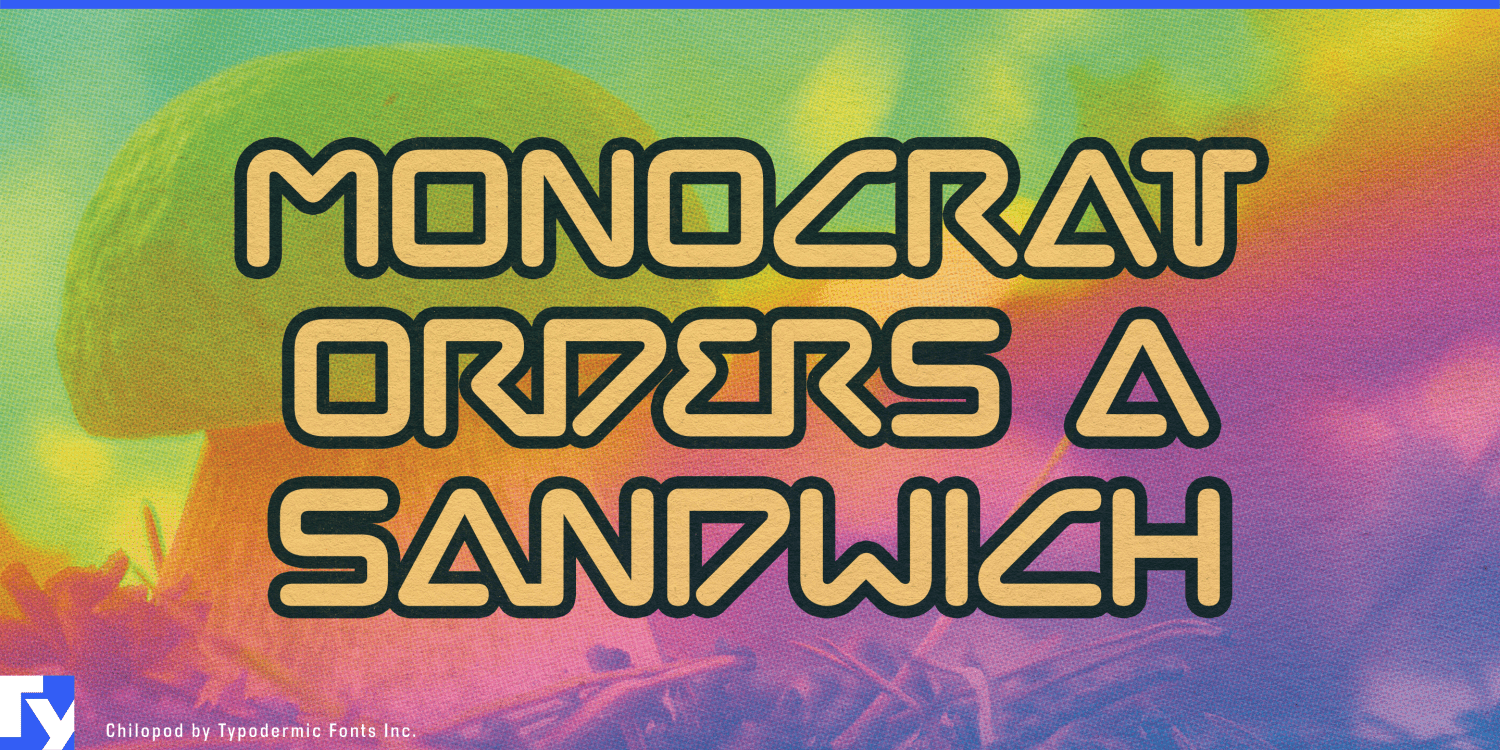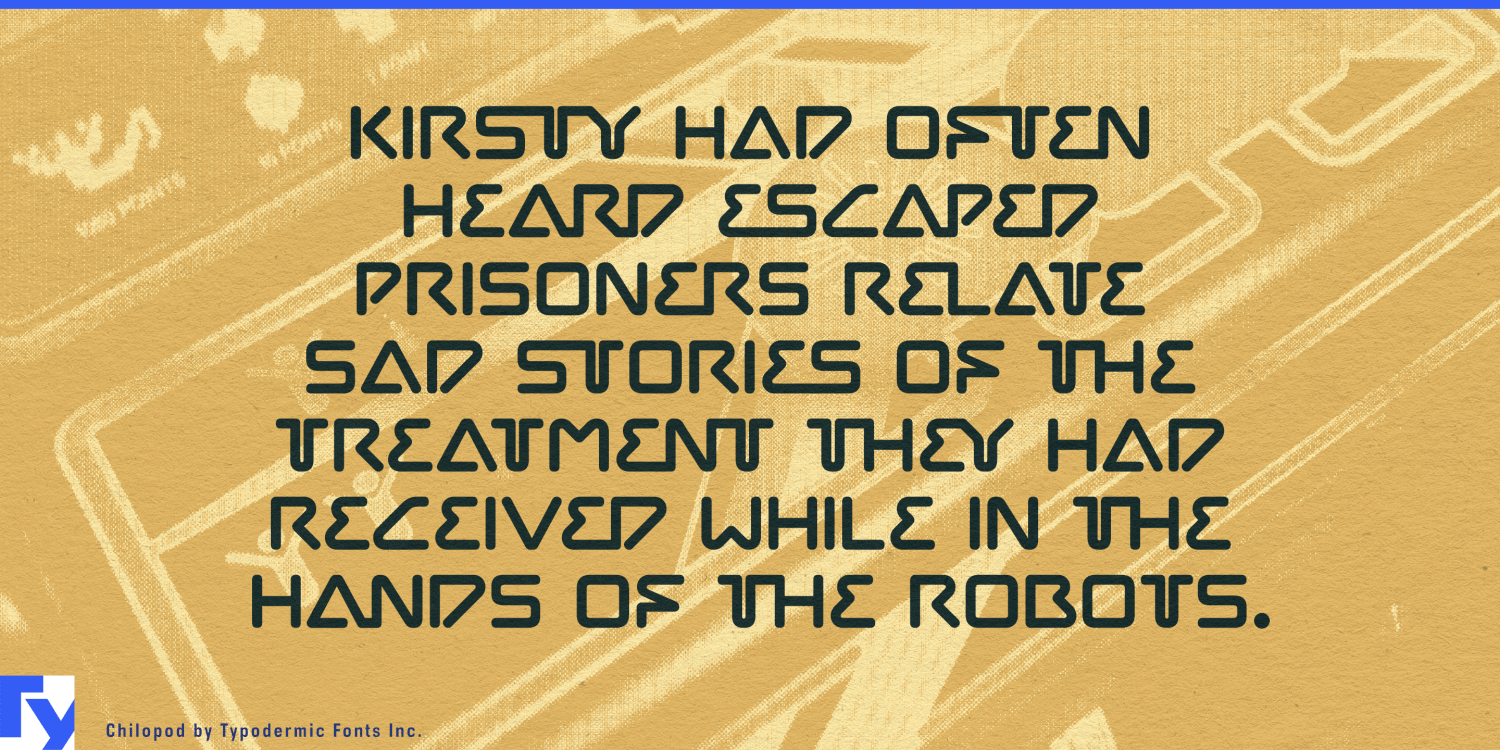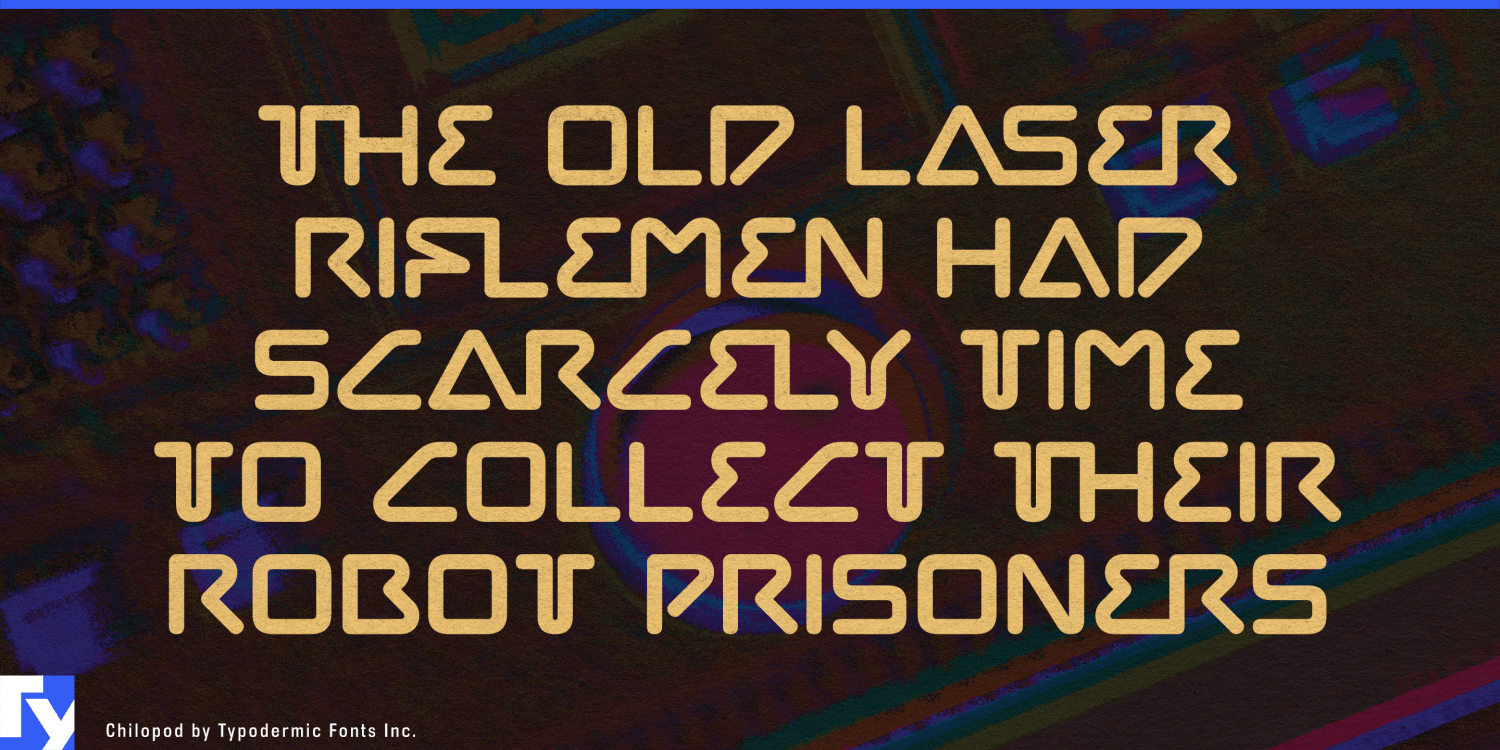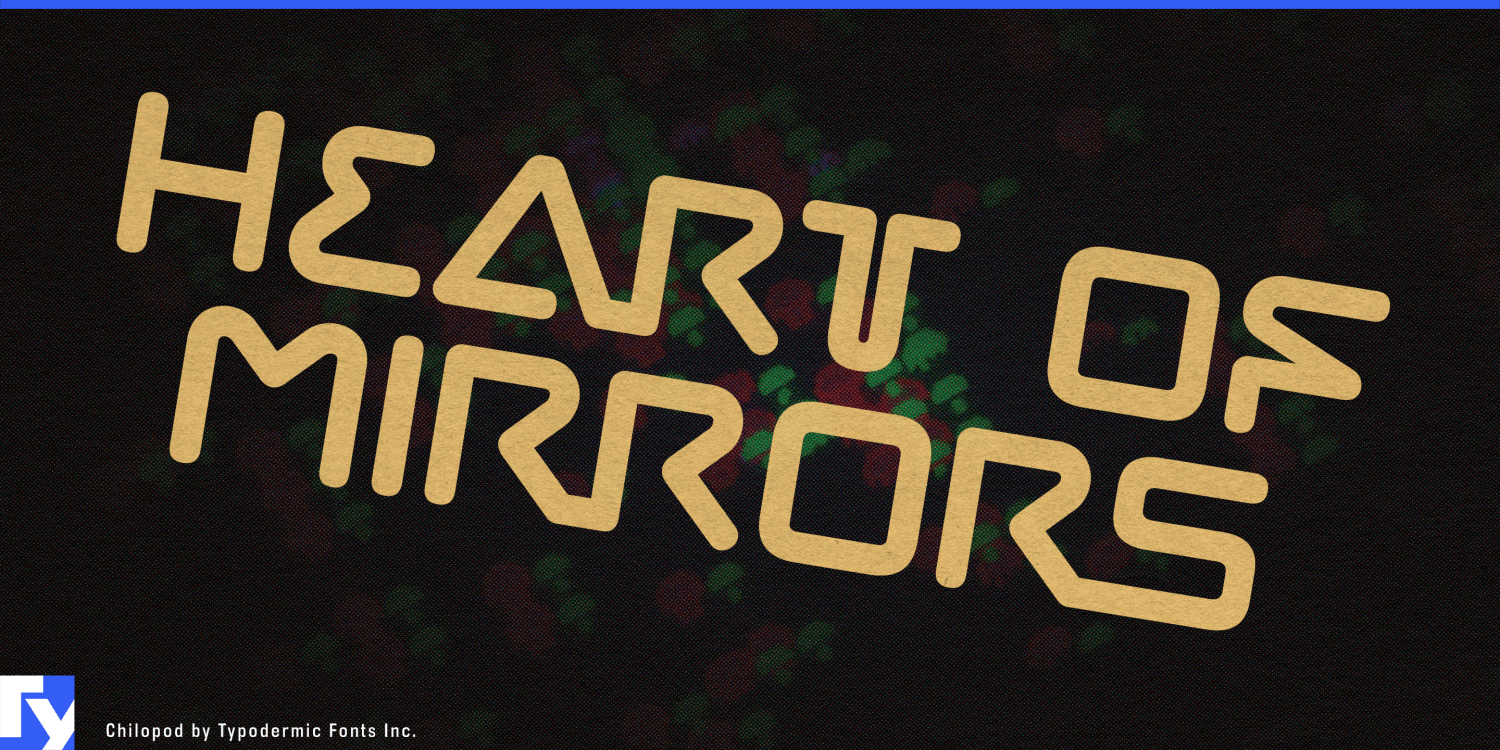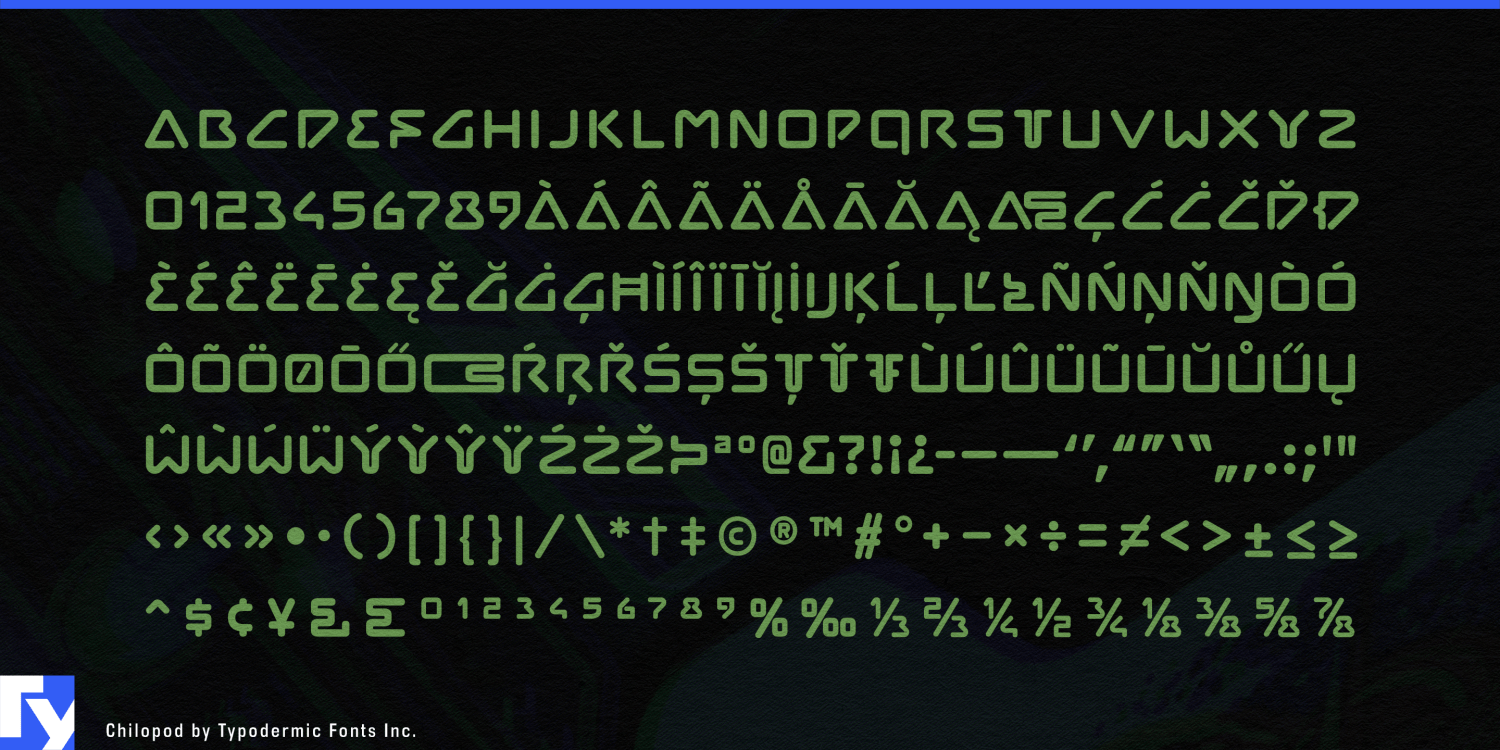
Chilopod
Chilopod turns connection into part of the letterform. Its rounded strokes can join across selected character combinations, allowing words to behave less like separate symbols and more like continuous paths. Depending on the context, those paths can suggest cable, pipe, roadway, circulation, or relationships between people.
That makes Chilopod especially well suited to connectivity infrastructure. Fibre networks, broadband providers, telecom equipment, subsea cables, data-centre interconnects, and network-peering services all exist to move information between points. In corporate identities, service-family names, expansion campaigns, trade-show environments, and large website headlines, Chilopod can make the typography participate in that idea rather than placing another node-and-line diagram beside the name.
Connected utilities offer a physical version of the same concept. Hydrogen distribution, water infrastructure, district heating and cooling, industrial gases, pipeline technology, and thermal-management systems all depend on continuous routes carrying something through a network. Chilopod’s tubular construction can echo pipes, conduits, and flow paths without becoming a literal diagram.
Transport and logistics add movement to the connection. Rail infrastructure, toll-road networks, airport transit, parcel routing, fleet systems, and automated distribution all link destinations through paths. Chilopod can support network-expansion campaigns, mobility-technology launches, logistics branding, and large environmental graphics where routes are part of the story.
The same logic works with closed loops. Recycling systems, reusable packaging networks, material-recovery programs, circular manufacturing, and industrial take-back schemes depend on keeping materials in motion rather than allowing them to reach a dead end. Chilopod can suggest continuity and return without relying on familiar recycling arrows.
Not every connection is physical. Telecommunications, collaboration platforms, professional networks, research consortia, and membership organizations all exist to connect people, institutions, or information. Chilopod gives that otherwise abstract promise a concrete visual device. Technology clusters, innovation districts, university-industry programs, and other multi-organization initiatives can use the same idea to show separate participants forming a larger system.
Chilopod is most useful when connection is the subject: wires linking equipment, pipes carrying resources, routes joining places, materials circulating through a closed loop, or people and organizations forming a network. Instead of adding connection as an illustration around the typography, Chilopod can build it into the word itself.